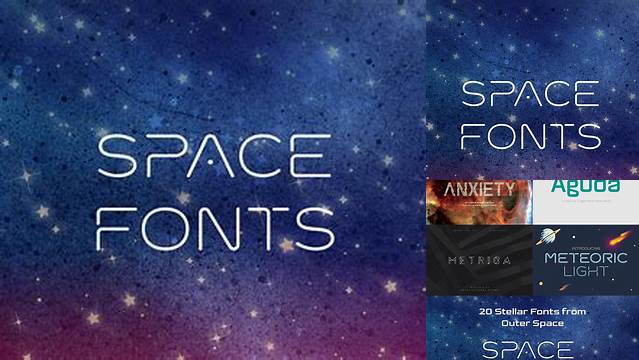
Space Font Generator: Create Stellar Designs
Hey guys, are you ready to launch your designs into orbit? Let's talk about the space fonts generator, a super cool tool that lets you create awesome, space-themed text for all your projects. Whether you're working on a website, a poster, a game, or just want to add a cosmic touch to your social media posts, a space font generator can be your best friend. We'll dive deep into what space fonts are, why they're so popular, and how you can use a generator to create stunning designs. Buckle up, because this is going to be a fun ride!
What Exactly are Space Fonts?
Okay, so what exactly makes a font a "space font"? Well, it's all about capturing the look and feel of outer space. Think about it: galaxies, stars, planets, futuristic technology – these are the things that inspire space fonts. They often have unique characteristics that set them apart from regular fonts. You might see fonts with:
- Geometric shapes: Many space fonts incorporate clean lines, sharp angles, and geometric designs, reflecting the precise nature of spacecraft and celestial bodies.
- Futuristic elements: Fonts can mimic the look of digital displays, alien languages, or the sleek aesthetics of sci-fi movies.
- Stellar effects: Some fonts include star-like details, glowing outlines, or textures that resemble nebulae and cosmic dust.
- Bold and impactful designs: Space fonts often need to be eye-catching and readable, especially in the context of space-themed designs that need to grab attention. This makes them great for headings, titles, and logos.
These characteristics work together to create a visual experience that instantly connects to the idea of space. From the minimalist elegance of a spacecraft's design to the swirling chaos of a nebula, space fonts offer a wide range of options to match your creative vision. Using the right space font can make your designs truly stand out, giving them an instant wow factor and making them instantly recognizable and unforgettable. It's all about the visual language, folks. It helps you to communicate your design themes in an engaging and exciting way. The goal is to transport your audience to the far reaches of the galaxy, all through the power of typography. Space fonts, when used creatively, can transform something simple into something extraordinary. It's like having a secret weapon for your design projects!
Why Space Fonts Are So Popular
Alright, so why are space fonts such a big deal? Why are so many people using them? There are a few key reasons for this trend:
- The appeal of space: Let's face it, the universe is fascinating. Space exploration, science fiction, and everything in between have captured the imaginations of people for generations. Space fonts tap into this fascination, allowing designers to tap into this fascination.
- Versatility: Space fonts are incredibly versatile. They work well for a variety of projects, including websites, posters, logos, games, and even social media posts. This versatility is what makes these fonts so attractive and valuable for creators.
- Creating a mood: Space fonts are great at creating a specific mood. Whether you want to evoke a sense of wonder, adventure, or futuristic technology, there's a space font out there for you. They are great for evoking feelings and setting a tone.
- Visual Impact: These fonts can be really visually striking, as we mentioned before. They stand out from the crowd and grab the attention of viewers. They make your content unforgettable and engaging.
- Trends: Design trends often play a role in the popularity of fonts. Space-themed designs are very popular right now, and this trend is reflected in the kinds of fonts that are being used. Space fonts are very "in" right now.
From websites to games, from branding projects to personal art, they offer something for everyone. They can also make your designs stand out in a crowded space. The use of space fonts brings a fresh perspective to any project. And the best part? They are fun! They allow for creative and engaging visuals that captivate viewers and elevate any project. It's just a great way to make your design stand out from the crowd.
How to Use a Space Fonts Generator: A Step-by-Step Guide
Using a space fonts generator is usually pretty straightforward. Here's a general guide on how to do it:
- Find a Generator: There are many online space fonts generators available. Search for something like "space font generator" or "sci-fi font generator" to find a variety of options. Make sure to pick one that aligns with your design requirements.
- Input Your Text: Type the text you want to generate in the space provided. Most generators will allow you to preview your text as you type, which is super helpful.
- Choose a Font: Browse through the font options. Space font generators often have several different fonts to choose from. You can select one that best fits your project's theme.
- Customize: Many generators offer customization options. You might be able to change the size, color, and any special effects. Experiment with these settings to make your text really pop.
- Preview and Download: Preview your text and make sure you're happy with the result. Once you're satisfied, the generator should provide options to download your generated text in various formats, such as images or other design formats, making it very easy to share and use in your projects.
Conclusion: Blast Off to Design Success
Well, guys, we've covered a lot! From the origins of space fonts to practical tips on how to use a space fonts generator, you're now ready to take your designs to the next level. The space fonts generator is a cool tool that will let you add a touch of the cosmos to your design projects. So, go out there, find a generator, experiment, and let your creativity take flight. With the right tools, you can transform your visions into reality. Happy designing and may your designs reach for the stars!